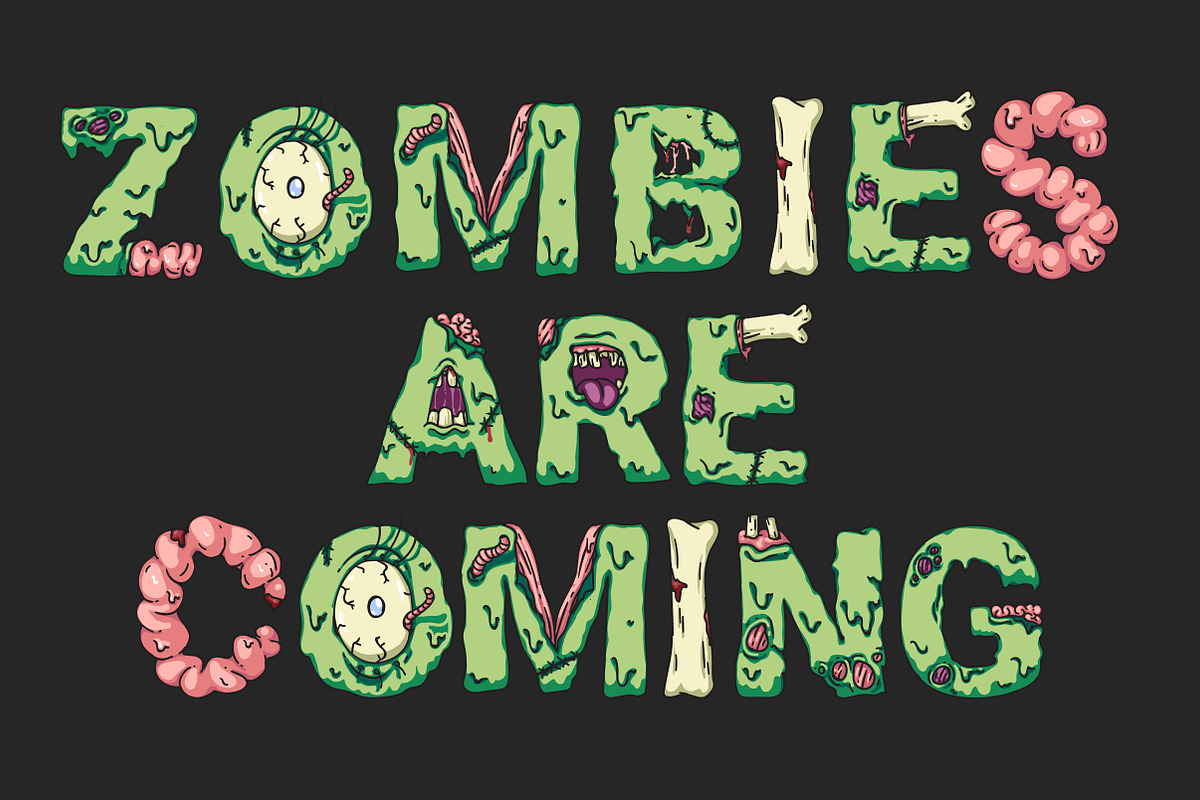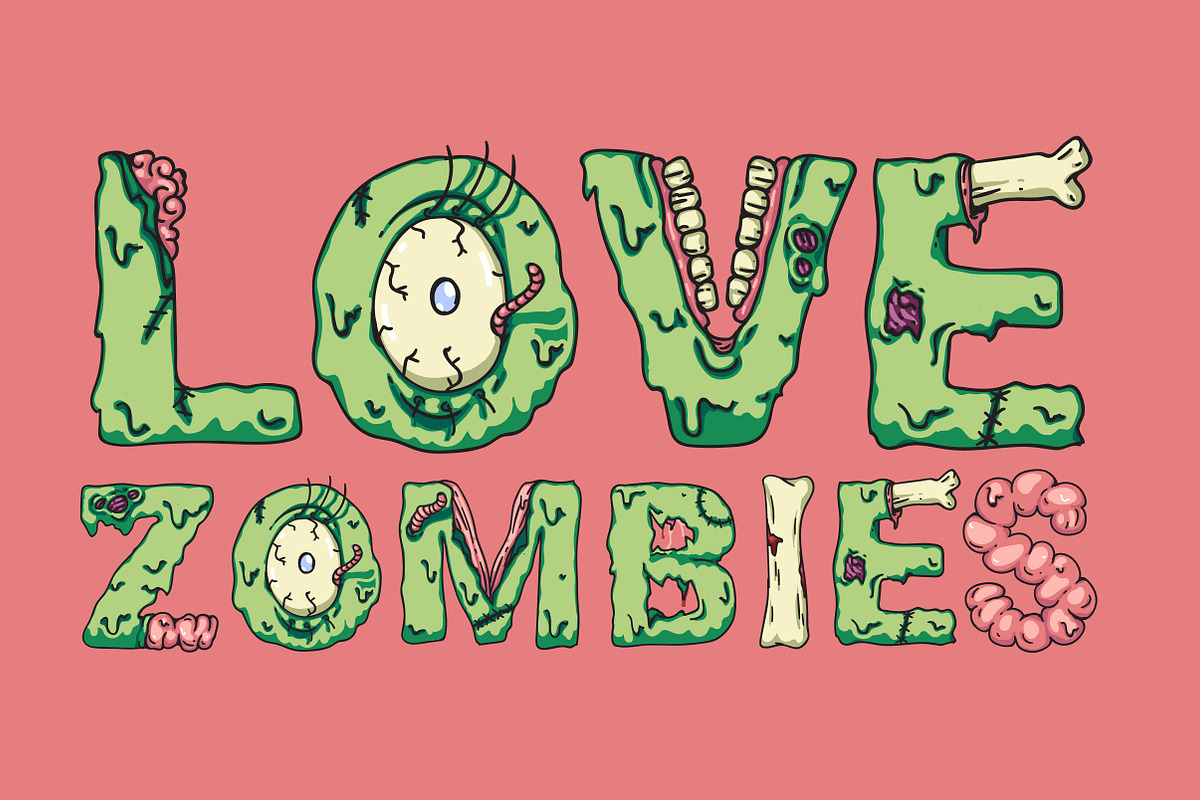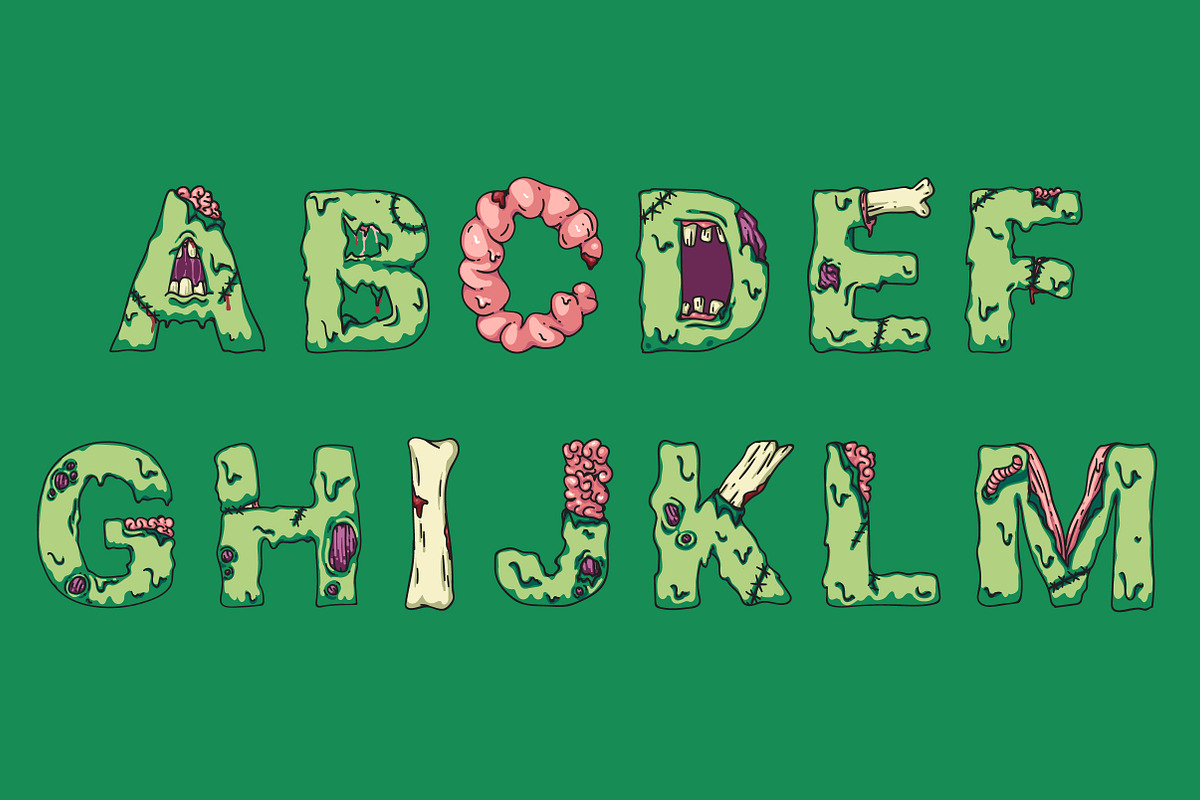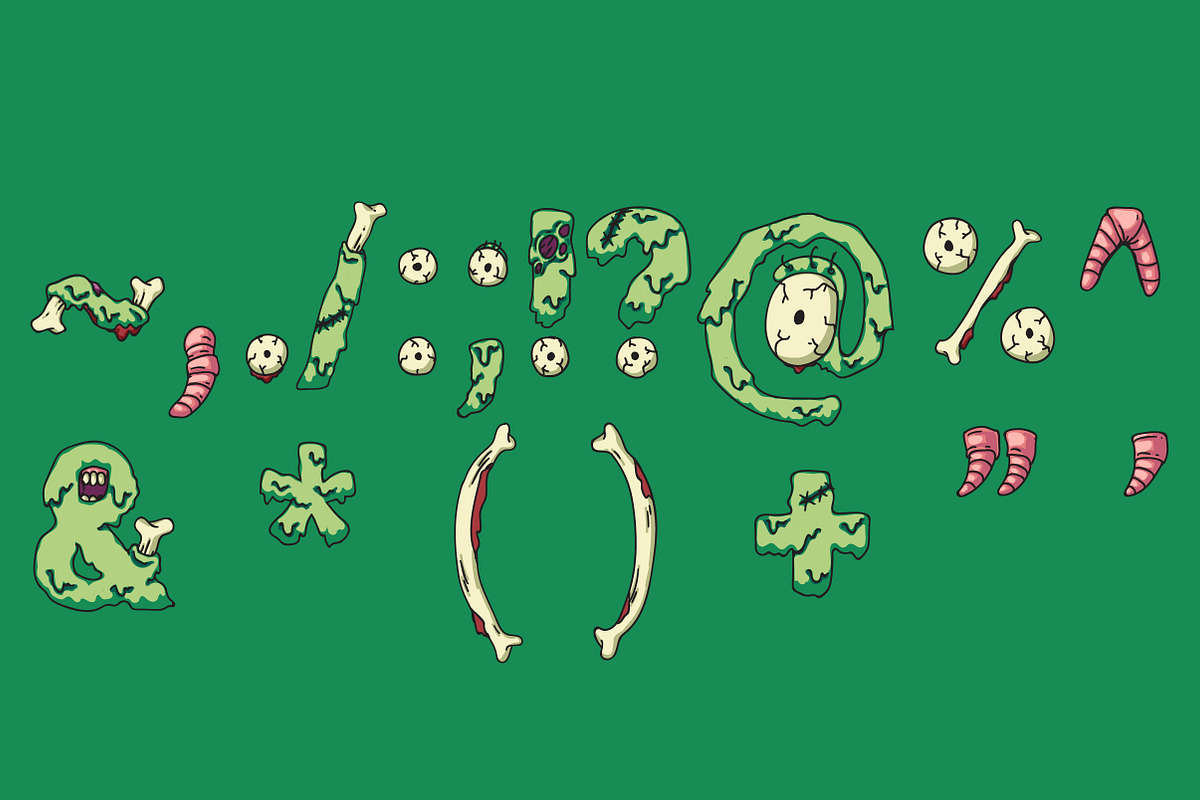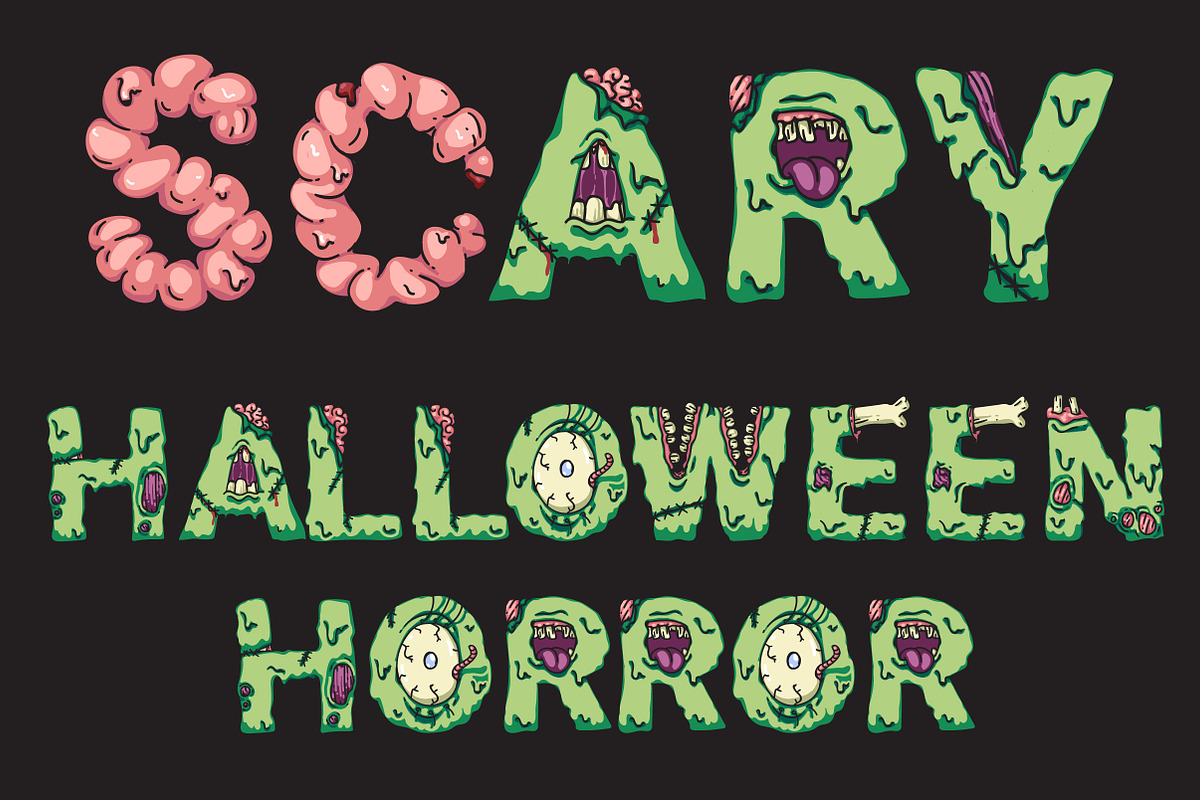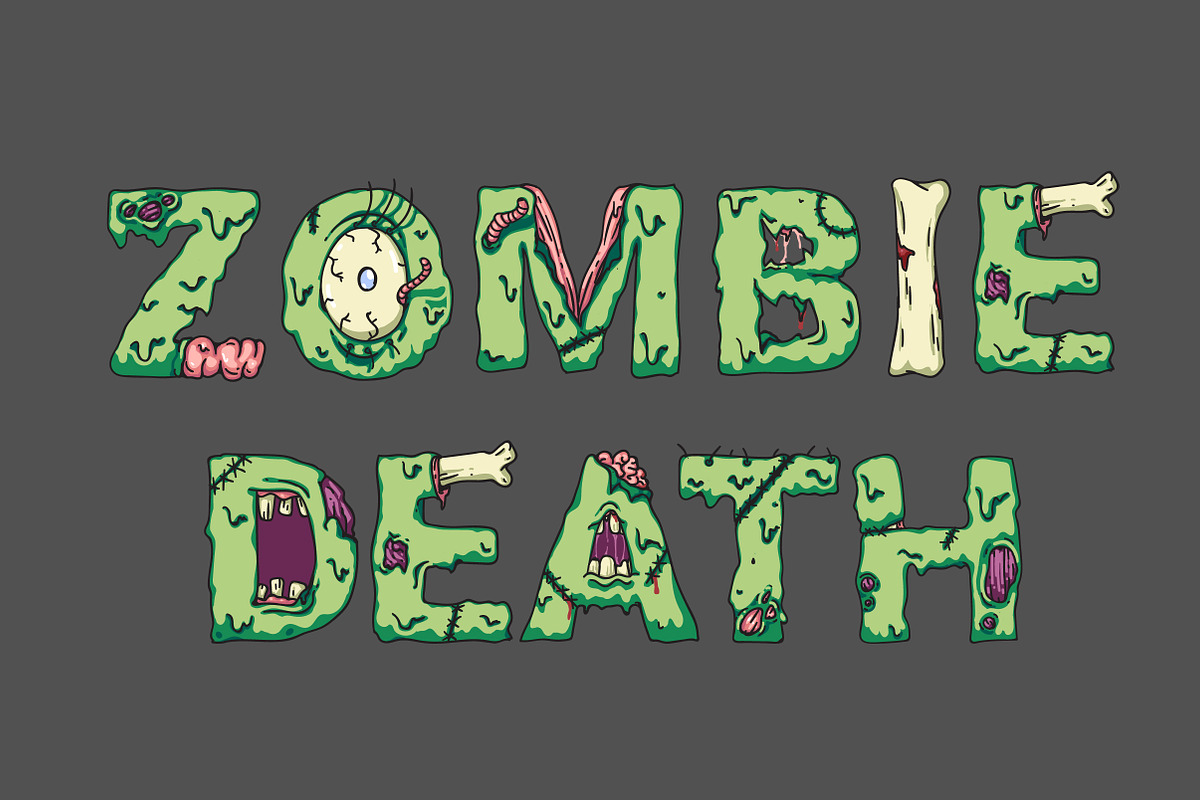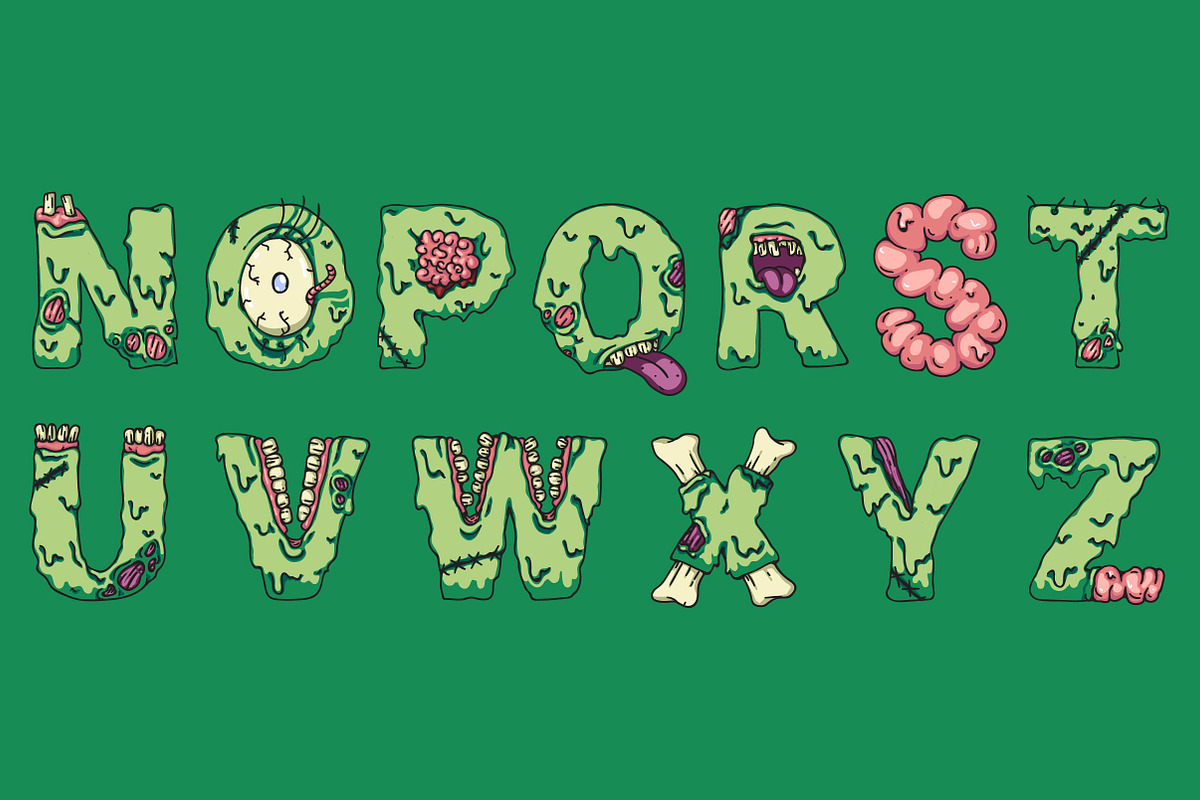
Scary zombie monster halloween font
Cool scary font for halloween party. This is what are you looking for If you need zombie style font or halloween font or monster style font. Very scary monster letters for all your projects.
Why Scary zombie monster halloween font is worth a look
Scary zombie monster halloween font by Art Loft fits naturally into Branding, posters, packaging, typography.